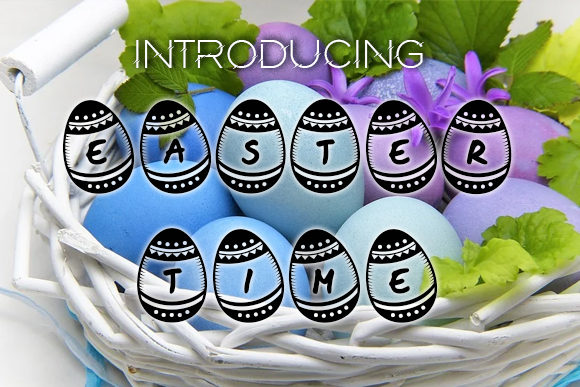
Journey into the enchanting realm of Easter Time Font, a decorative font family that captures the essence of Easter's joyous spirit. Each letter, meticulously crafted, is adorned with vibrant Easter egg ornaments, transforming your words into a whimsical wonderland. Unleash your creativity and let Easter Time Font paint your digital canvas with captivating designs.
With Easter Time Font, you'll embark on a voyage of endless possibilities. Its charming aesthetic lends an air of delight to any project, be it a cheerful Easter greeting card, an eye-catching poster advertising your upcoming egg hunt, or an invitation that promises an unforgettable Easter celebration. Easter Time Font is more than just a font; it's a gateway to a world of creativity and imagination.
Picture your social media posts adorned with Easter Time Font, each word a colorful gem that draws the eye and sparks curiosity. Your Easter-themed marketing campaign will radiate joy and enchantment, leaving an enduring impression on your audience. Let Easter Time Font elevate your brand's presence and make your Easter-related content shine.
This font family is not merely a collection of letters; it's an expression of artistry, a testament to the magic of Easter. Its delicate Easter egg ornaments add a touch of whimsy and charm to any text, instantly transforming the mundane into the extraordinary. Embrace Easter Time Font and embrace the spirit of creativity this Easter season.